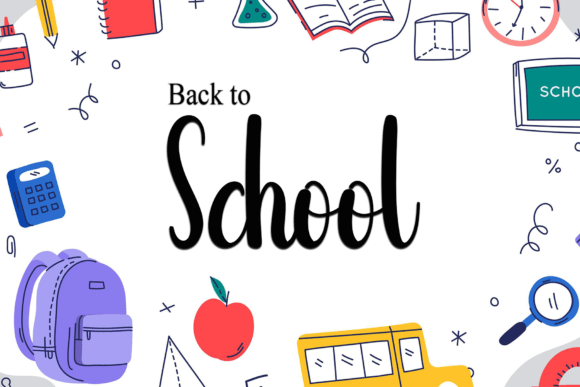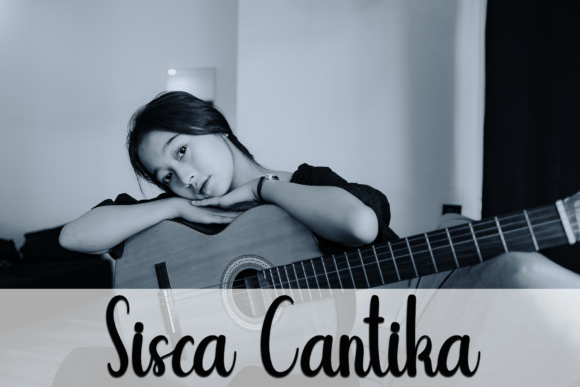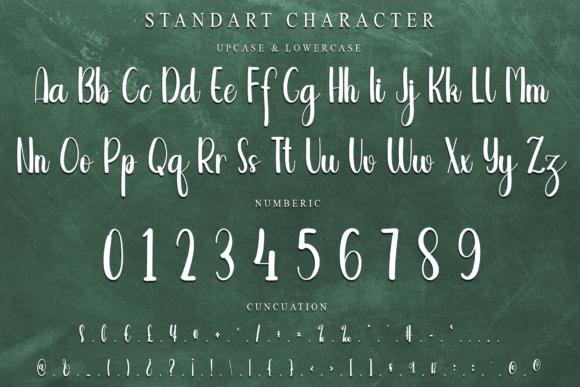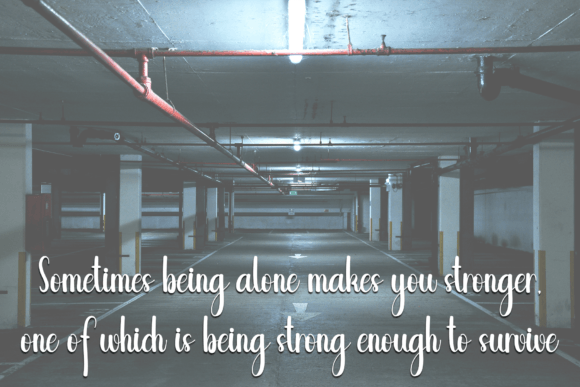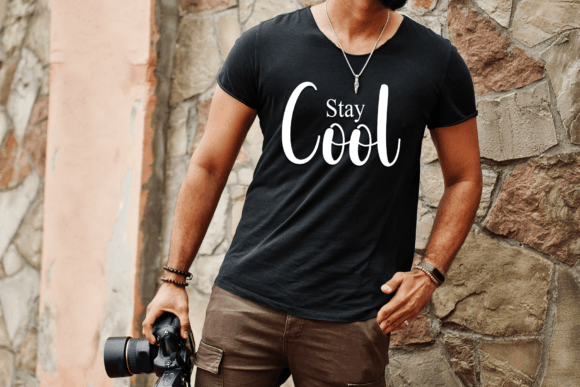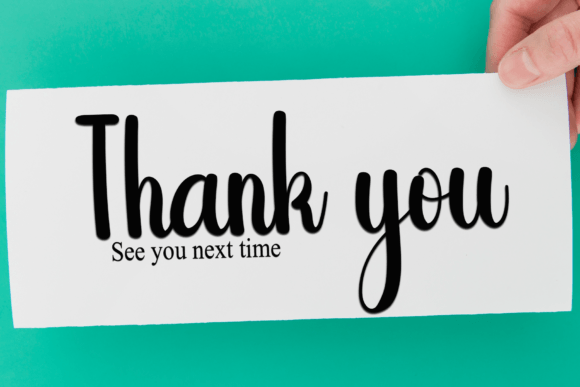
Introduction to Next December Font
Remember that moment when you’re brainstorming a creative project, and you’re stuck on the perfect font to elevate your design? The excitement builds up as you scroll through endless options, and finally, you stumble upon the one that makes everything click. For designers, finding the right font can be the difference between a mediocre and a mesmerizing design.
That’s where the Next December Font comes in – a cool, simple, and playful handwritten font that’s sure to bring a smile to your face. With its high-quality design, this font is perfect for adding a touch of whimsy to your projects. Whether you’re working on a design resource with a transparent background or a digital project that requires a free download, Next December Font is an excellent addition to your toolkit.
As you explore the possibilities of this versatile font, you’ll discover how it can breathe new life into your creative ideas. In this article, we’ll delve into the world of Next December Font and explore its unique features, making it an invaluable resource for designers of all levels.
Key Features of Next December Font
- Unique characteristics include elegant script and cursive styles
Honest Review: Next December Font
I recently came across the Next December Font, and I must say it’s a fantastic addition to any creative project. This high-quality font is perfect for designers who want to add a touch of elegance and sophistication to their designs.
What works well: ✨ The font has a beautiful, modern design with a transparent background, making it easy to use on any background. The download process was smooth, and the font is available for free, making it a great resource for designers on a budget. The font is also highly customizable, which is a big plus for designers who want to get creative.
- Beautiful, modern design
Any limitations: ⚠️ While the font is high-quality, it may not be suitable for all types of designs. For example, if you’re working on a project that requires a lot of bold typography, this font may not be the best choice. Additionally, the font may not be compatible with all operating systems.
Overall, I’m really impressed with the Next December Font. It’s a great design resource that’s perfect for designers who want to add a touch of elegance to their projects. Just be sure to check the system requirements before downloading.
Tips for Getting the Most Out of Next December Font
To get the most out of the Next December Font, use it in conjunction with other high-quality design resources, such as graphics and images. This will help you create visually appealing and cohesive designs for your creative project.
The Next December Font is ideal for various creative projects, including branding, marketing materials, and digital designs. Its transparent background and high-quality design make it perfect for use in logos, business cards, and other design elements.